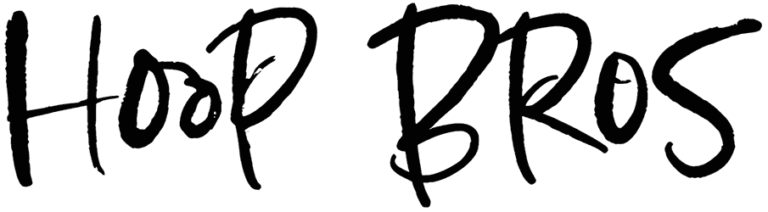
Milky Creamy Font
In all of its simplicity, Milky Creamy font has a little bit of a casual vibe and can do a minimal makeover to your texts. This continuous handwritten font has a pen-written design on its extended characters.
You can use this font for any business and product titles, advertisements, books, or channel banners; it would look good on anything! This font can be the element that makes a strong connection with your viewer.